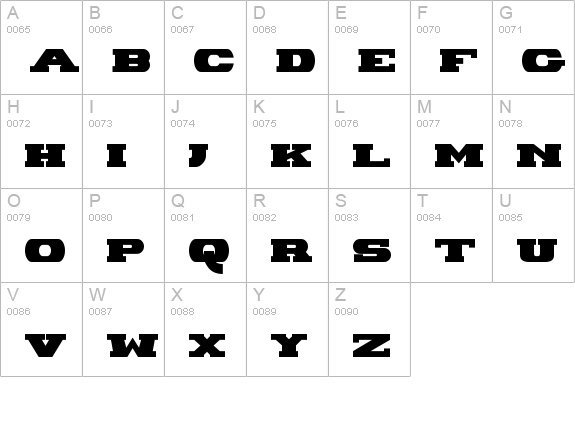
Hackney Block Font Details
Hackney Block font is a bold and striking typeface that exudes an urban and contemporary vibe. Its strong and sturdy letterforms are perfect for making a statement in your design projects. With its unique block-like shapes and sharp edges, this font is sure to catch the eye and leave a lasting impression. What sets Hackney Block font apart is not just its visually appealing aesthetics, but also its accessibility. It is a free font, freely available to download at FontsMarket.com. This means that you can easily incorporate this versatile typeface into your designs without breaking the bank. Whether you're working on a personal project or a commercial venture, Hackney Block font offers a cost-effective solution that doesn't compromise on quality. With its extensive character set, Hackney Block font allows for creative flexibility. From headlines to logos, posters to branding, this font can be utilized in a variety of design applications. Its bold and commanding presence adds a touch of modernity and urban edge to any project, making it an excellent choice for those looking to make a bold statement. Hackney Block font is designed with legibility in mind, ensuring that your message is clear and easy to read. Its clean lines and distinct shapes make it suitable for both digital and print media, making it a versatile choice for designers across various platforms. In conclusion, Hackney Block font is a visually captivating typeface that is not only aesthetically pleasing but also freely accessible. Its bold and urban-inspired design, combined with its legibility and versatility, make it a valuable addition to any designer's toolkit. Download this font for free at FontsMarket.com and let your creativity soar.